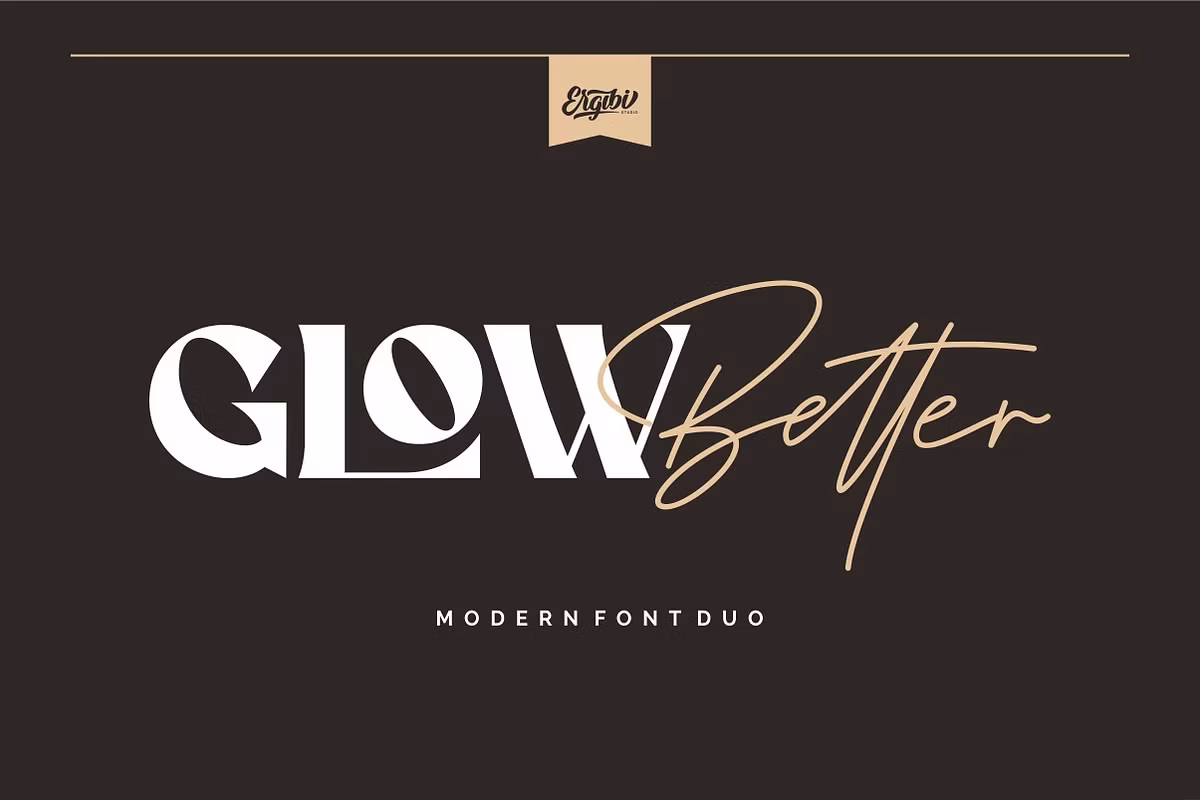
Glow Better - Modern Font Duo Free Download
Glow Better - Modern Font Duo Free Download is a stylish and contemporary font duo that combines bold display fonts with elegant script styles. Perfect for logos, branding, invitations, posters, and more, Glow Better offers flexibility and sophistication for any creative project. The combination of modern sans-serif and sleek handwritten script adds a unique, eye-catching touch to your designs.